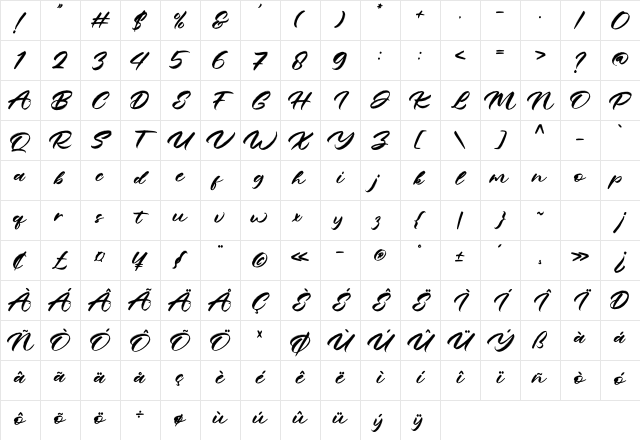
Astogria Bejha Regular Free Font
Astogria Bejha Regular
Foundry: Figuree Studio
Designer: Icep Anwar Fadhil
Design Context for Astogria Bejha
Astogria Bejha is a composed and adaptable typeface that performs quietly and consistently across a wide range of design contexts.